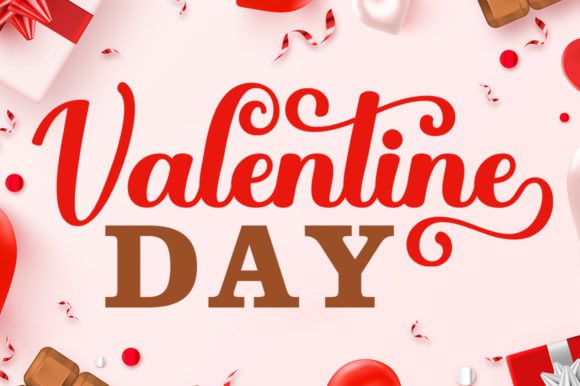
Bright Light Font
Introducing Bright Light, a bold script font ideal for logos, handwritten quotes, product packaging, header, poster, merchandise, social media & greeting cards.